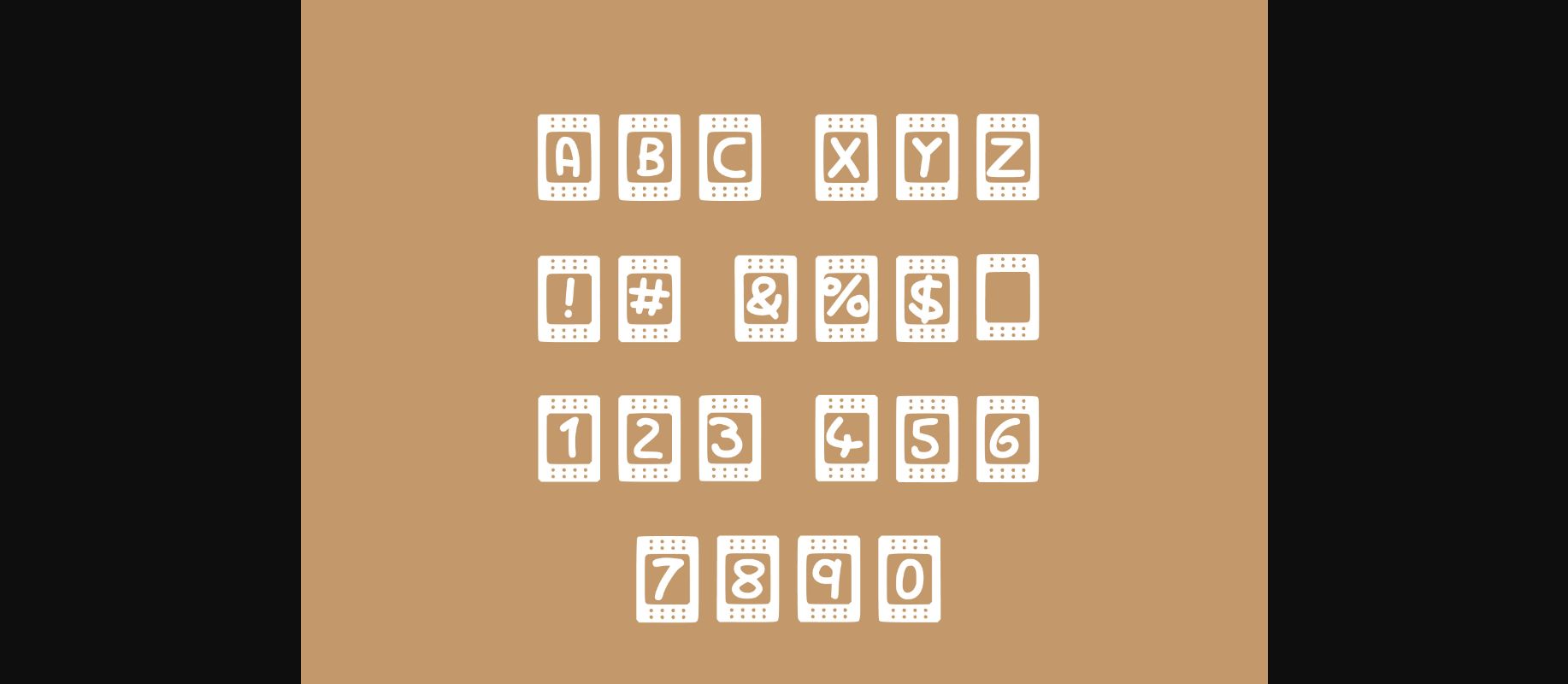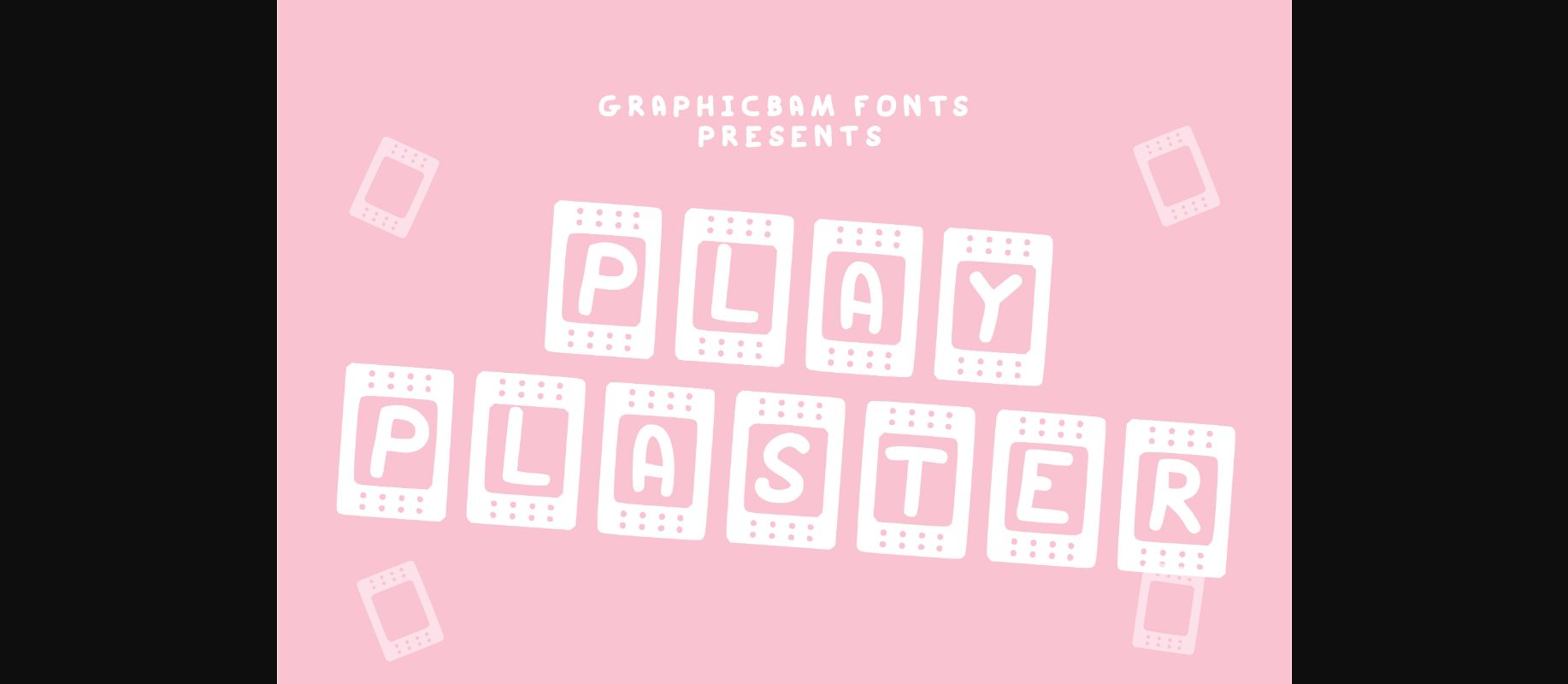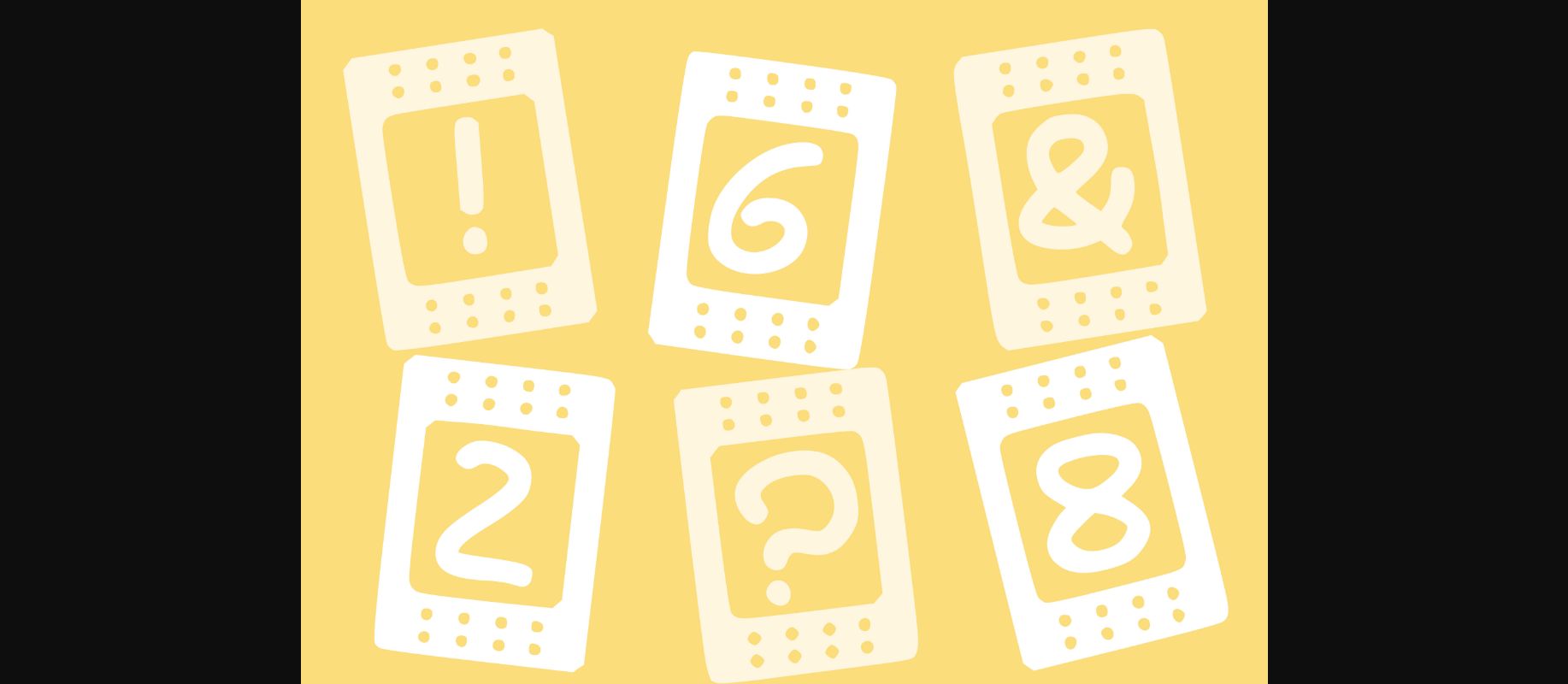
Play Plaster is an incredibly cool and interestingly designed decorative font. Whether you’re using it for crafting, digital designing, presentations or greeting cards making, it’s perfect!